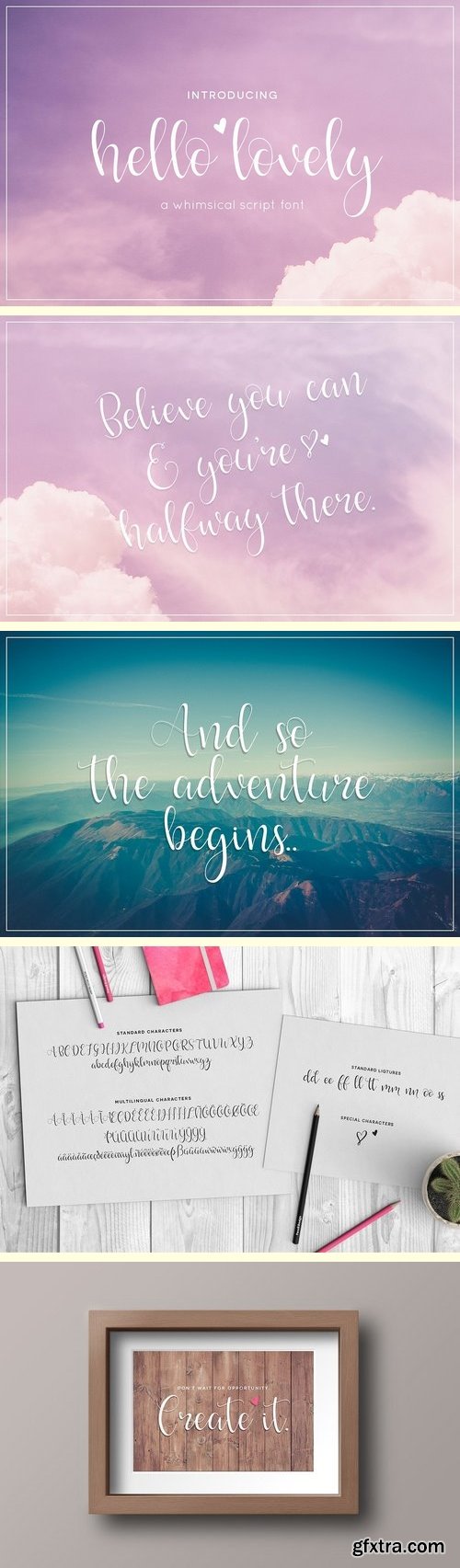
CM - Hello Lovely Script Font 1788383
I'm so excited to share with you my first ever font, "Hello lovely". A bouncy, handwritten script font. Multilingual support for Western European languages and several standard ligatures included. Both OTF and TTF files are included. Enjoy! :)